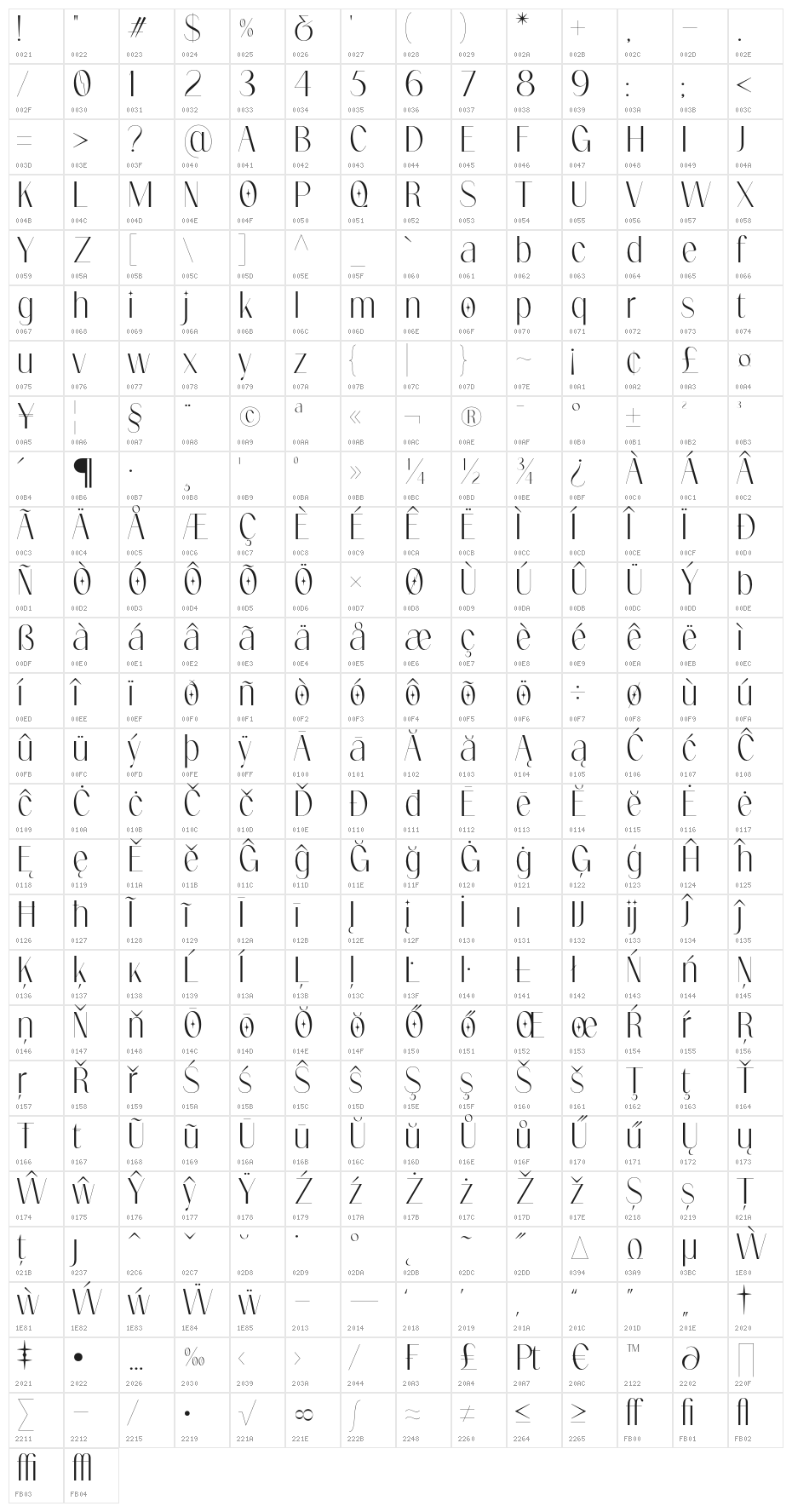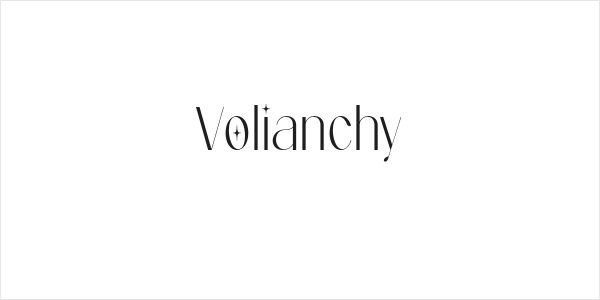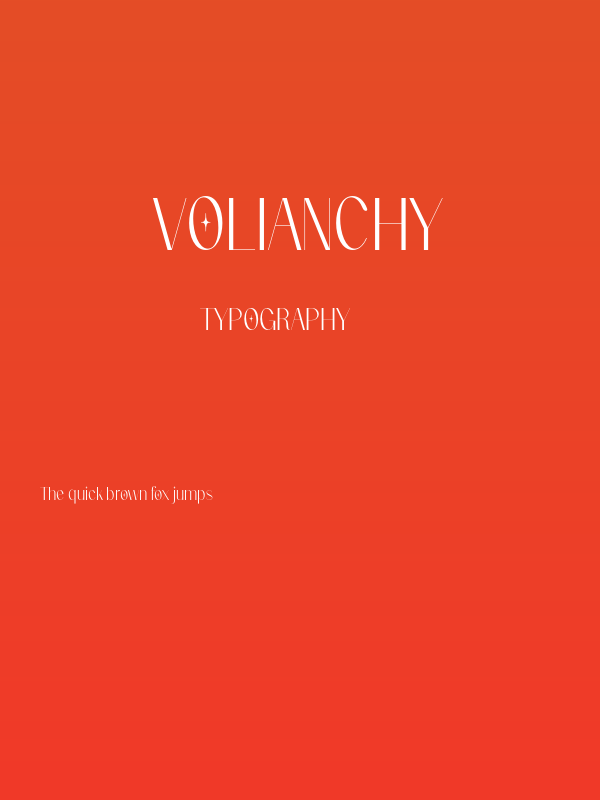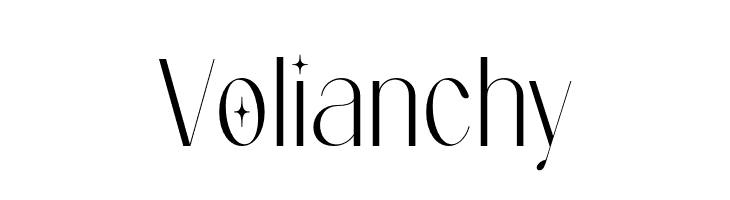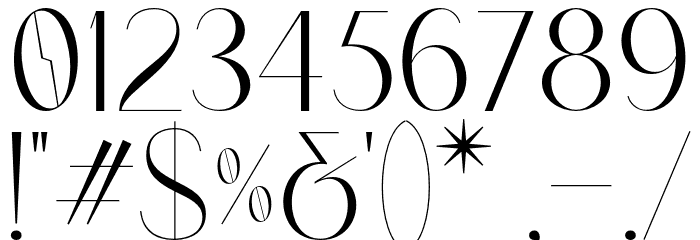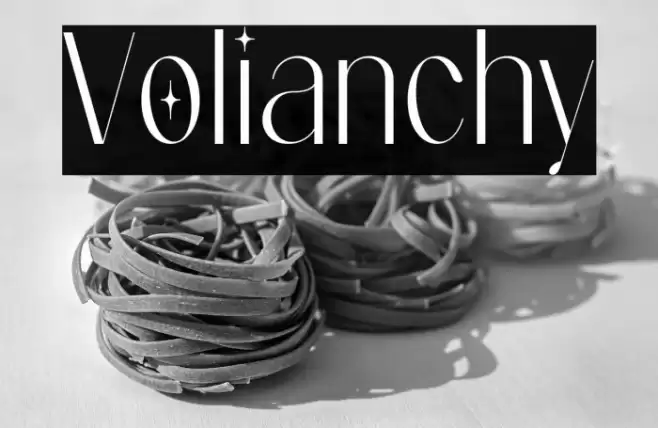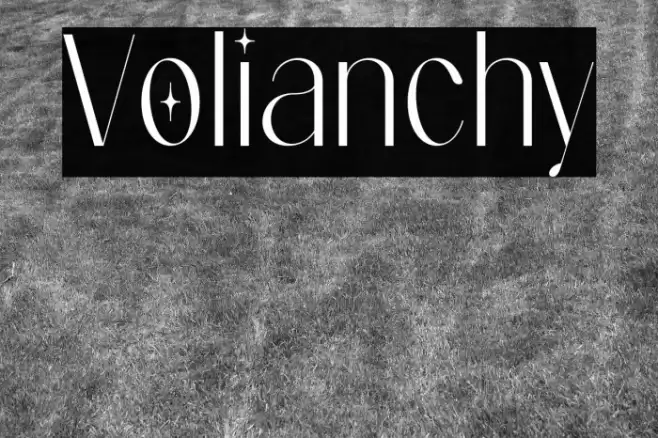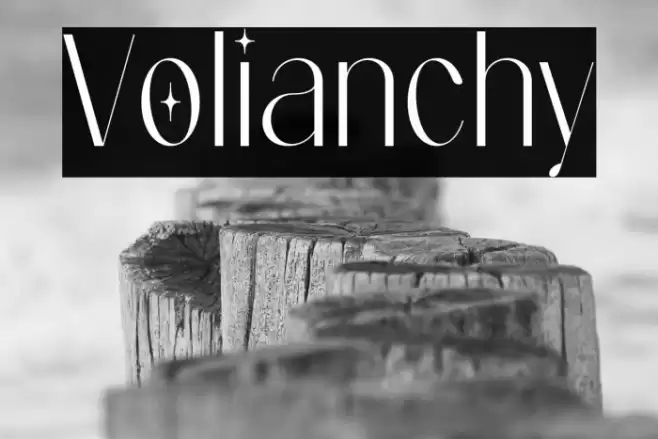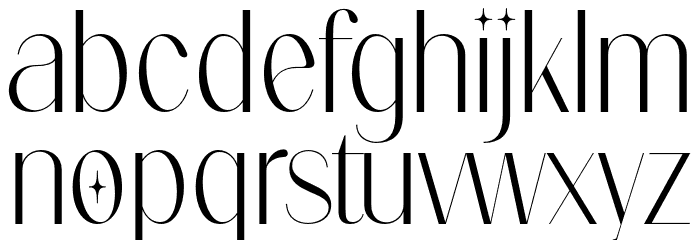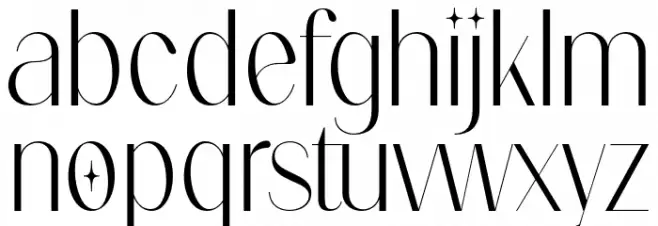
Volianchy Font
Volianchy Description
This font exhibits a modern and elegant design with a high contrast between thick and thin strokes, creating a sophisticated and stylish appearance. The uppercase letters are tall and slender, while the lowercase letters maintain a consistent flow with subtle curves. Unique decorative elements are incorporated into certain characters, such as the star-like symbols within the 'O' and 'o', adding a distinctive flair. The numerals are sleek and align well with the overall aesthetic, and the special characters are creatively designed to complement the font's style.
| Overall Style | Modern, Decorative |
| Use Case | Logos, Headlines, Branding |
| Proposed Projects | Ideal for luxury branding, fashion magazines, elegant invitations, and high-end product packaging. |